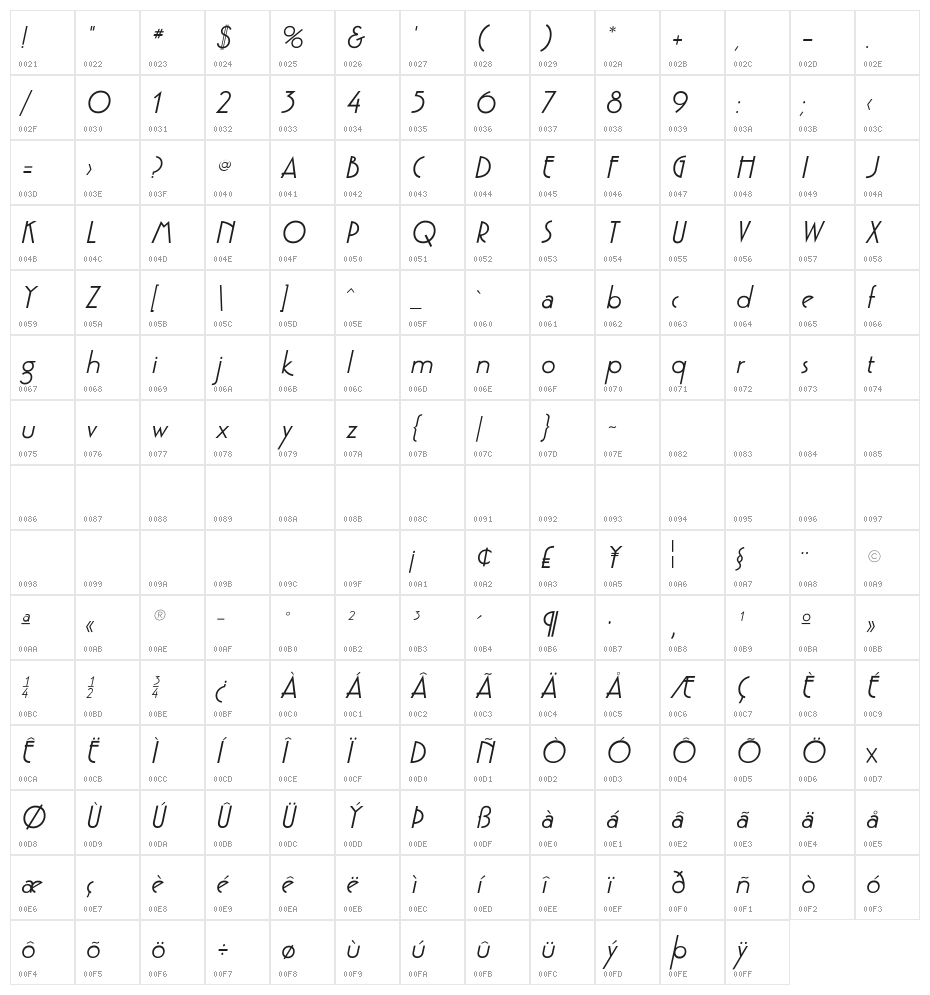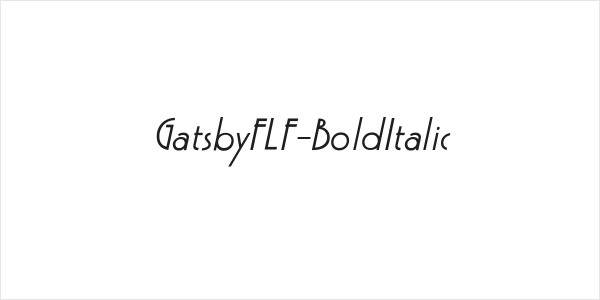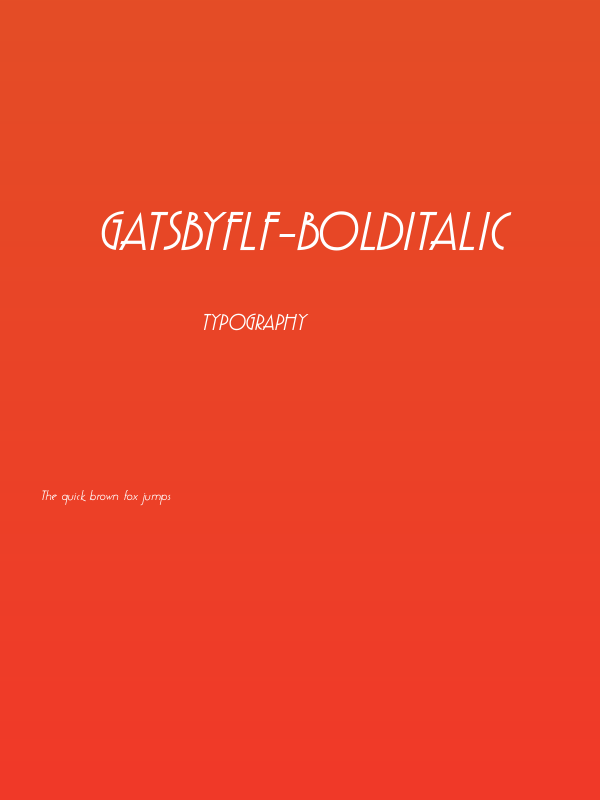
GatsbyFLF-BoldItalic Font
GatsbyFLF-BoldItalic Description
This font exudes a sense of elegance and sophistication with its bold and italicized style. The characters are slightly elongated and feature a distinct slant, giving them a dynamic and forward-moving appearance. The strokes are clean and sharp, with a consistent thickness that maintains readability while adding a touch of flair. The uppercase letters are particularly striking, with unique angles and curves that make them stand out. The lowercase letters complement the uppercase with a more subtle design, yet they retain the overall aesthetic. Numbers and special characters are designed to match the font's style, ensuring a cohesive look across all text elements.
| Proposed Projects | Ideal for luxury branding, fashion magazines, elegant invitations, and high-end product packaging. |